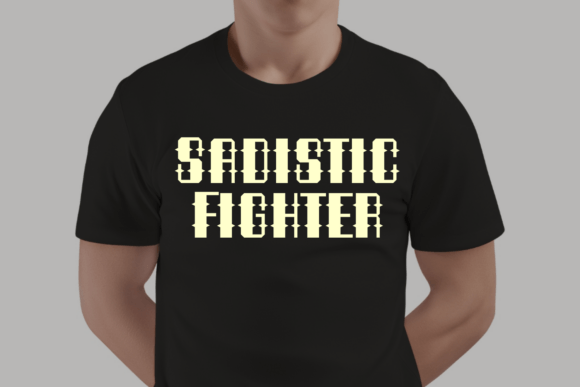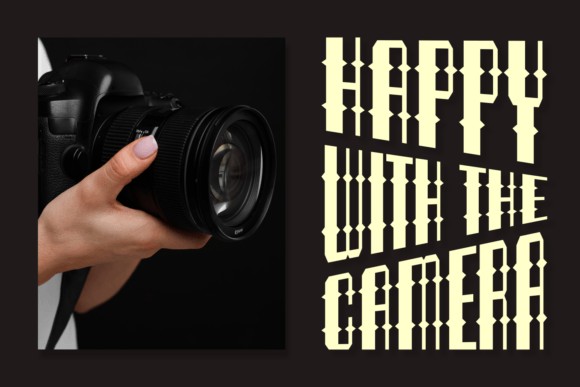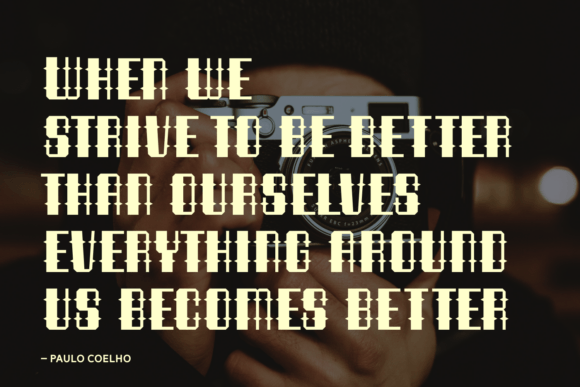
Introduction to Mingue Font
As designers, we’ve all been there – staring at a blank canvas, struggling to find the perfect font to bring our creative project to life. But what if I told you there’s a font that can elevate your designs from ordinary to extraordinary? Enter the stunning Mingue Font, a blackletter masterpiece that effortlessly blends traditional gothic elements with modern flair.
With its sharp edges and ornate details, Mingue Font exudes elegance and strength, making it a valuable addition to any designer’s toolkit. Whether you’re creating a logo, poster, or branding campaign, Mingue Font is sure to command attention with its timeless and sophisticated appeal. And the best part? It’s available for free download, making it an accessible design resource for creatives of all levels.
As a high-quality font with a transparent background, Mingue Font is the perfect choice for designers who demand the best. Its versatility and unique style make it an excellent choice for a wide range of design projects, from modern typography to vintage-inspired graphics.
Key Features of Mingue Font
- High-quality design: Mingue Font is a beautifully crafted font suitable for various creative projects, offering a unique aesthetic touch.
- Transparent background: This font features a transparent background, making it perfect for use with images or other design elements.
- Multi-language support: Mingue Font supports a wide range of languages, making it a versatile design resource for various creative projects.
Honest Review: Mingue Font
I recently stumbled upon the Mingue Font, a creative project that’s been making waves in the design community. At first glance, I was drawn to its elegant and modern aesthetic, perfect for a high-quality design resource.
What works well: ✨ The Mingue Font is highly versatile, with a wide range of uses from digital designs to print materials. It also features a transparent background, making it easy to customize and integrate into any creative project. Additionally, it’s available for free download, which is a huge plus for designers on a budget.
However, there are some limitations to consider: ⚠️ The font may not be suitable for all design projects, particularly those requiring a more classic or traditional look. Additionally, while the free download is a great perk, it’s worth noting that the font may not be suitable for commercial use without proper licensing.
Overall, I’m impressed with the Mingue Font’s potential as a design resource. Its modern aesthetic and versatility make it a great addition to any designer’s toolkit. However, it’s essential to carefully consider its limitations before incorporating it into your next creative project.
Mingue Font
Introduction to Mingue Font
Mingue Font is a free download high quality design resource ideal for creative projects. This versatile font features a transparent background, making it perfect for overlaying on images or using as a standalone design element.
Tips for Getting the Most Out of Mingue Font
Use Mingue Font as a creative accent in your design to add visual interest. Experiment with different font sizes, colors, and styles to find the perfect look for your project.
Mingue Font is ideal for:
- Business branding and marketing materials
- Social media graphics and advertisements